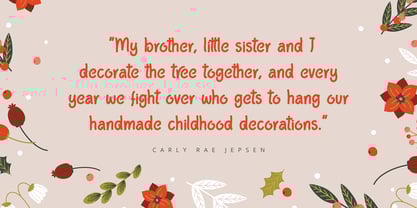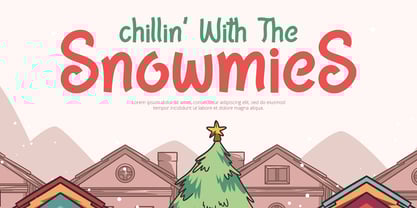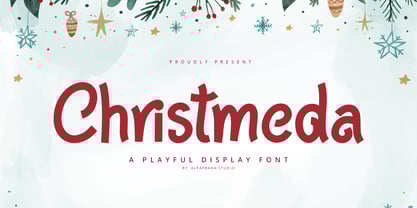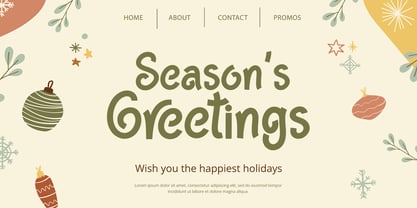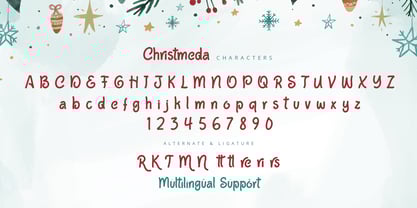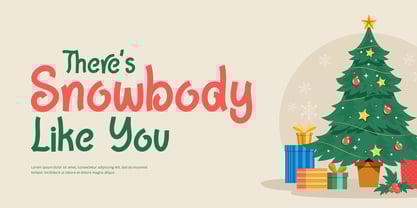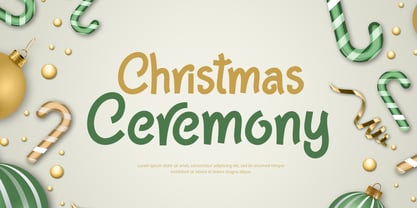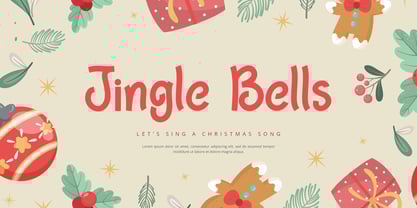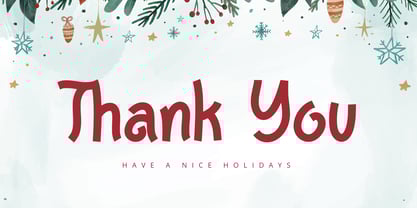
Christmeda
by Alpaprana
The Christmeda Font Family was designed by Nadia Salsabila and published by Alpaprana. Christmeda contains 1 styles. More about this family
Christmeda is a playful display font with cute and unique style. It will be perfectly used for Branding, Logo Design, Lettering, Logotype, Clothing, Poster, magazine, packaging, posters, shopping bags, t-shirts, book covers, photography, special events and other design project.